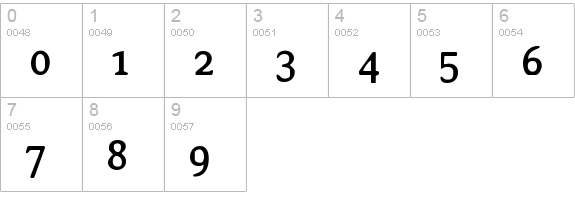
Copyshop Font Details
Copyshop font is a modern and versatile typeface that is perfect for a wide range of design projects. With its clean lines and contemporary style, this font is sure to make your text stand out. Whether you are creating a poster, logo, or website, Copyshop font will add a touch of sophistication and elegance to your work. What makes Copyshop font even better is that it is completely free to use. You can download this font for free at FontsMarket.com, making it a great choice for both personal and commercial projects. So why wait? Add Copyshop font to your collection today and take your designs to the next level!